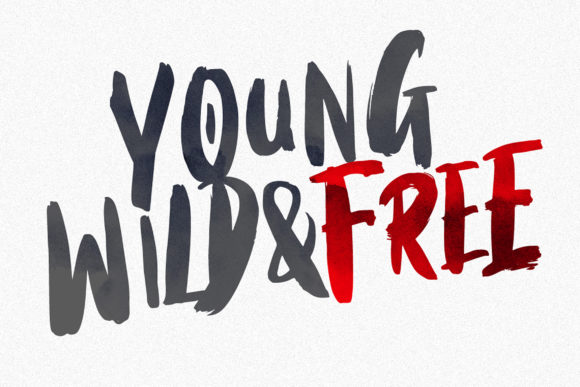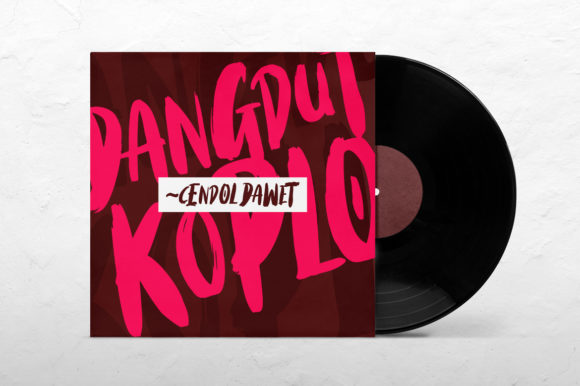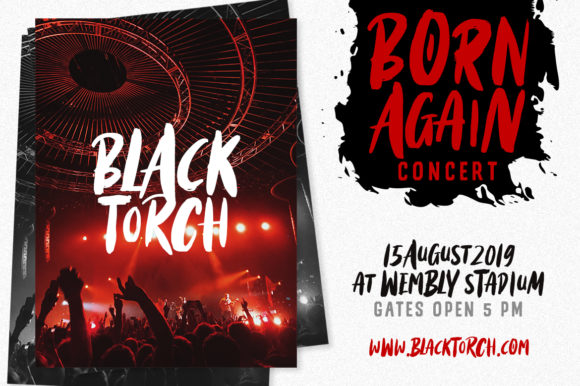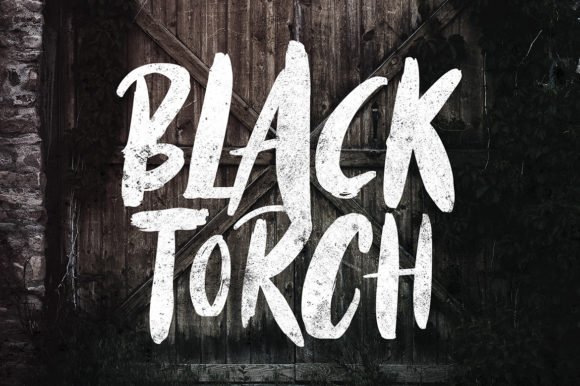
Introduction to Black Torch Font
Black Torch is a brush font bursting with natural rough dry brush strokes.
Perfect for a variety of design projects .
Key Features of Black Torch Font
Why Choose Black Torch Font?
Black Torch Font offers exceptional quality and versatility, making it a valuable addition to your design toolkit. Whether you’re creating for personal projects or commercial use, Black Torch Font delivers professional results.